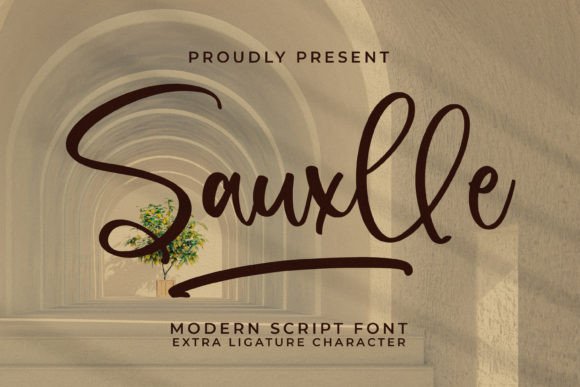
Journey into the realm of calligraphy and embrace Sauxlle Font, a masterpiece designed to elevate your creations. Crafted with meticulous precision, each character exudes a graceful persona, blending the charm of traditional penmanship with a refreshing modern twist. Its refined strokes dance across your screen, carrying a touch of elegance and sophistication to every project you undertake.
Unleash your inner artist and immerse yourself in a world of creative expression. Sauxlle Font's versatility knows no bounds, effortlessly enhancing anything from logos and branding to invitations and social media posts. Its ability to capture attention and convey emotions makes it an ideal choice for conveying messages of love, joy, and inspiration.
With Sauxlle Font at your fingertips, transform your resume into a captivating masterpiece. Its beautifully flowing letters command attention, exuding professionalism and creativity. Let your individuality shine through as you craft a resume that stands out from the crowd and leaves a lasting impression on potential employers.